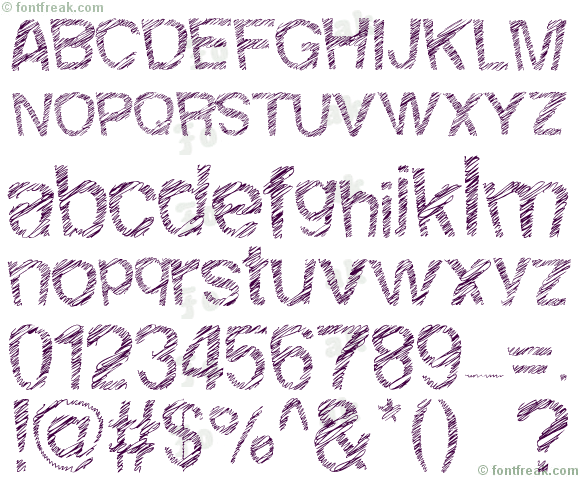
Woodcutter Fine Scketch
The Woodcutter Fine Scketch font, crafted by woodcutter Manero, is a captivating handwritten typeface that exudes a rustic charm and artistic flair. This font stands out with its unique sketch-like appearance, providing a sense of warmth and authenticity. The strokes are delicately rendered with a consistent weight, allowing for a smooth flow while maintaining a slightly uneven texture that mimics hand-drawn artistry. The contrast between the strokes adds depth, while the spacing ensures readability, making this typeface both visually appealing and practical.
This font is particularly well-suited for a variety of creative applications. It shines in wedding invitations, where its whimsical character can enhance the romantic feel of the event. Additionally, it works beautifully on movie posters, lending a handcrafted touch that can attract attention and convey an artistic theme. Restaurant menus will benefit from the font’s inviting warmth, making dishes feel more personal and artisanal. Furthermore, it can be used effectively in branding projects for small businesses that wish to present a friendly and approachable image.
Woodcutter Fine Scketch appeals to graphic designers, small business owners, and content creators looking to infuse their projects with a touch of creativity and personality. It allows users to express a unique artistic vision while maintaining professionalism.
What sets the Woodcutter Fine Scketch font apart is its ability to blend creativity with functionality. This font is not just a typeface; it’s a visual storyteller that can transform a simple text into an engaging narrative. For those seeking to add a distinctive flair to their designs, the Woodcutter Fine Scketch font free download offers an excellent opportunity to bring that vision to life.